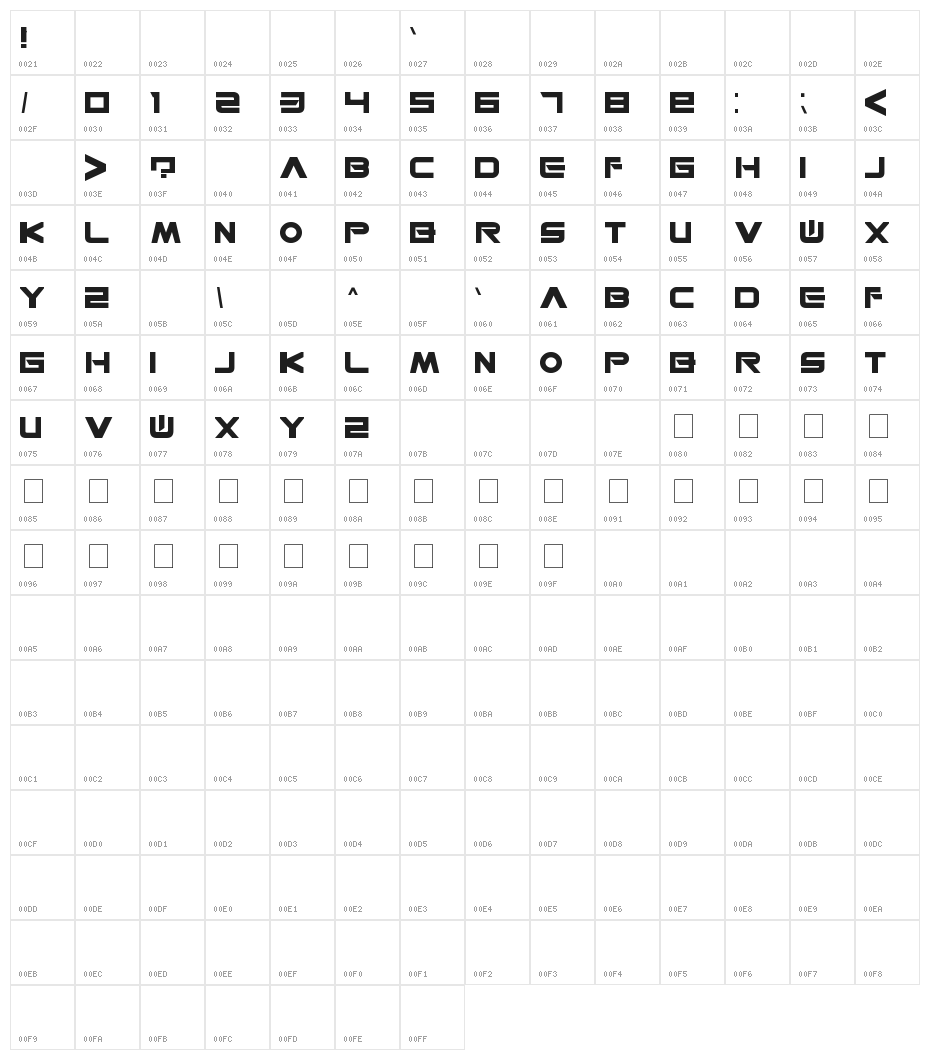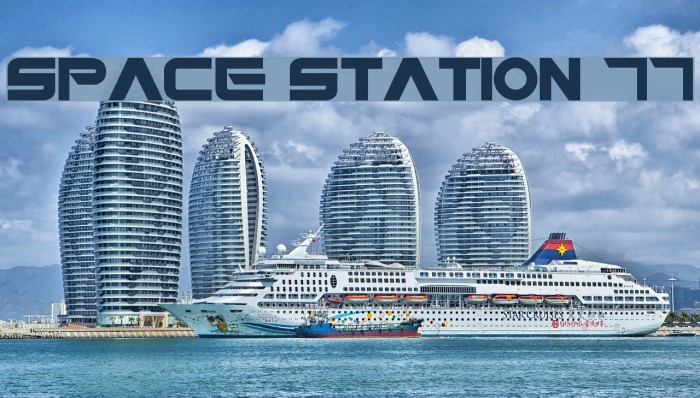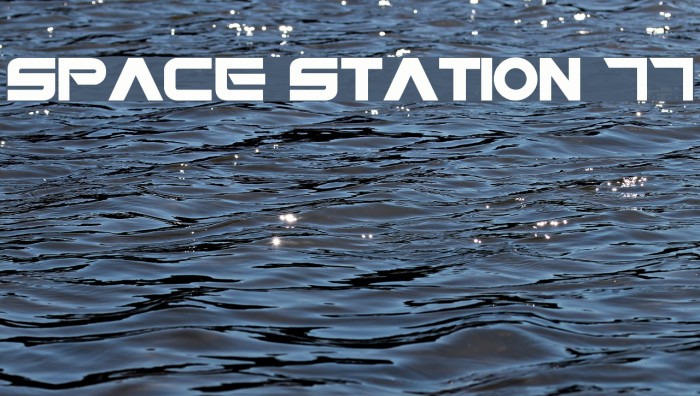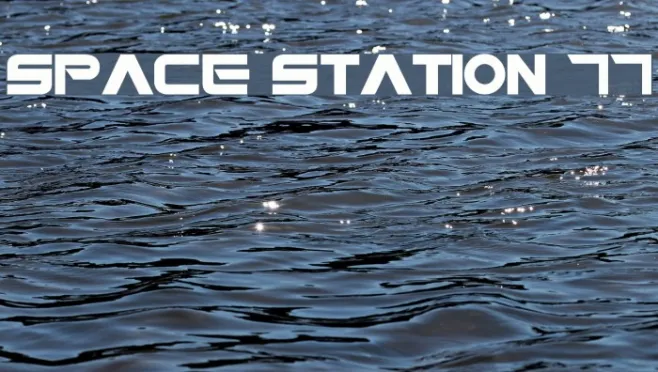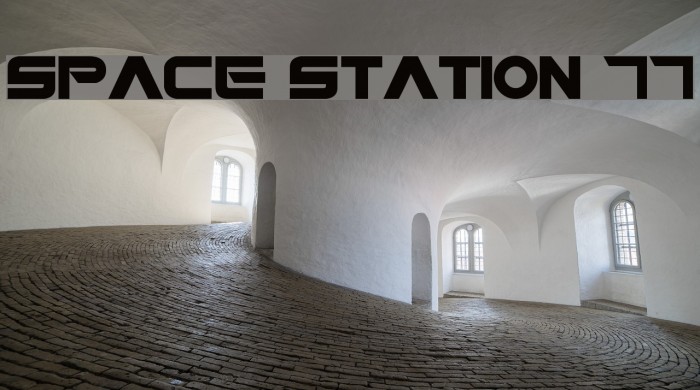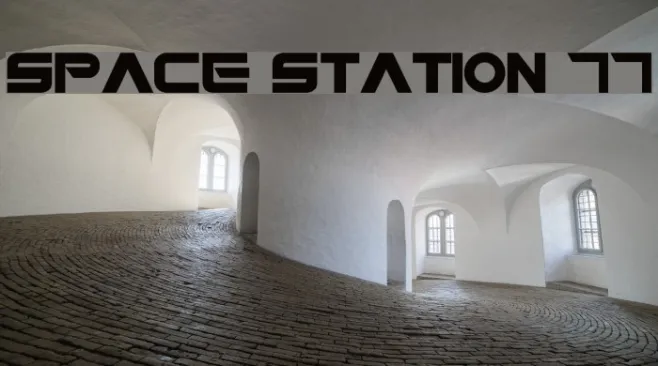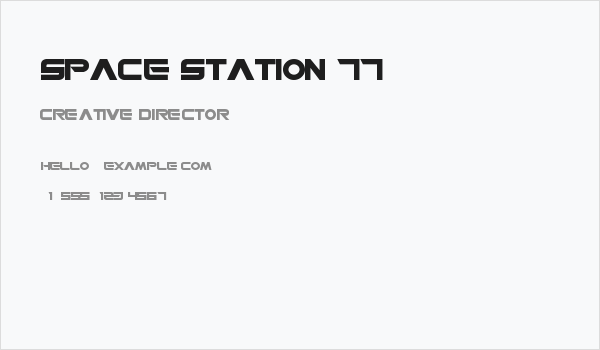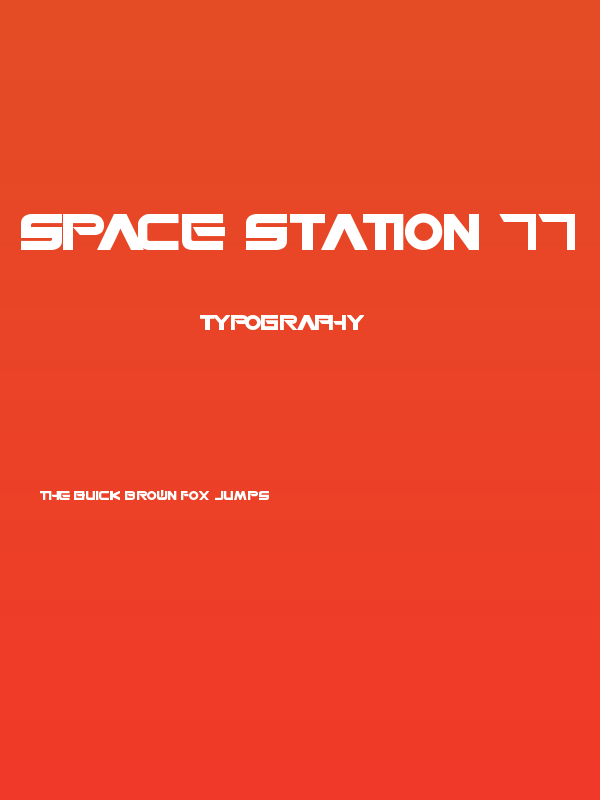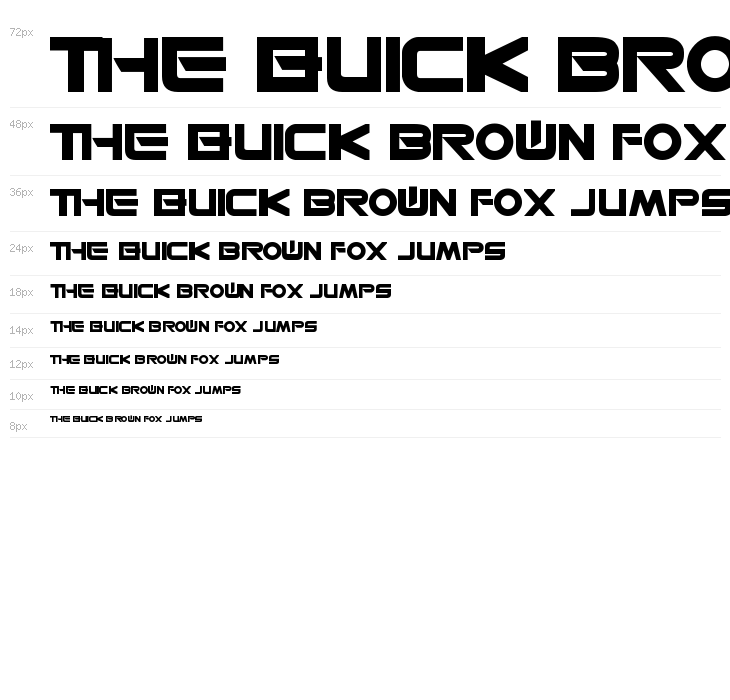
Space Station 77 Font
Space Station 77 Description
This font features a futuristic and geometric design, characterized by bold, angular lines and a strong presence. The uppercase letters are crafted with sharp edges and a blocky appearance, giving a sense of modernity and technological advancement. The numerals follow the same design principles, ensuring consistency across all characters. The special characters maintain the bold and angular theme, making them stand out. This font is ideal for projects that require a modern and edgy look, such as sci-fi themed designs, technology branding, or video game titles.
| Proposed Projects | Ideal for sci-fi themed designs, technology branding, video game titles, and futuristic posters. |